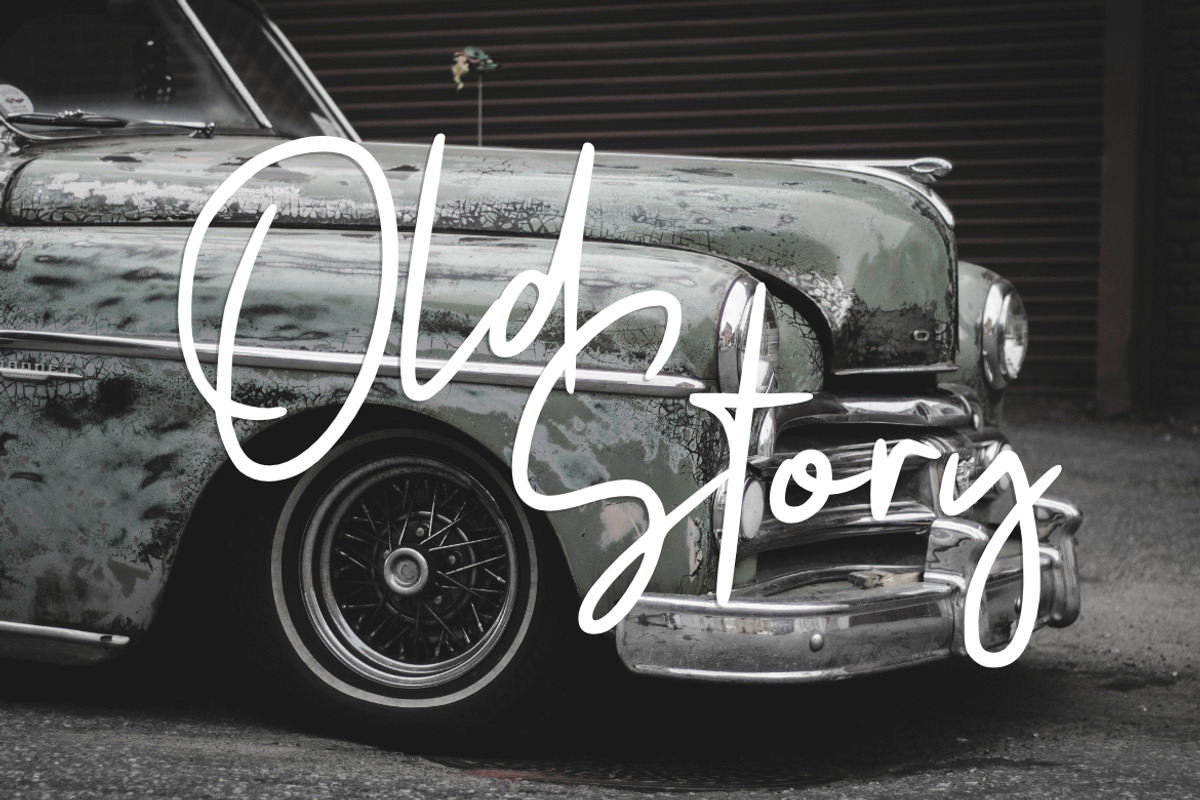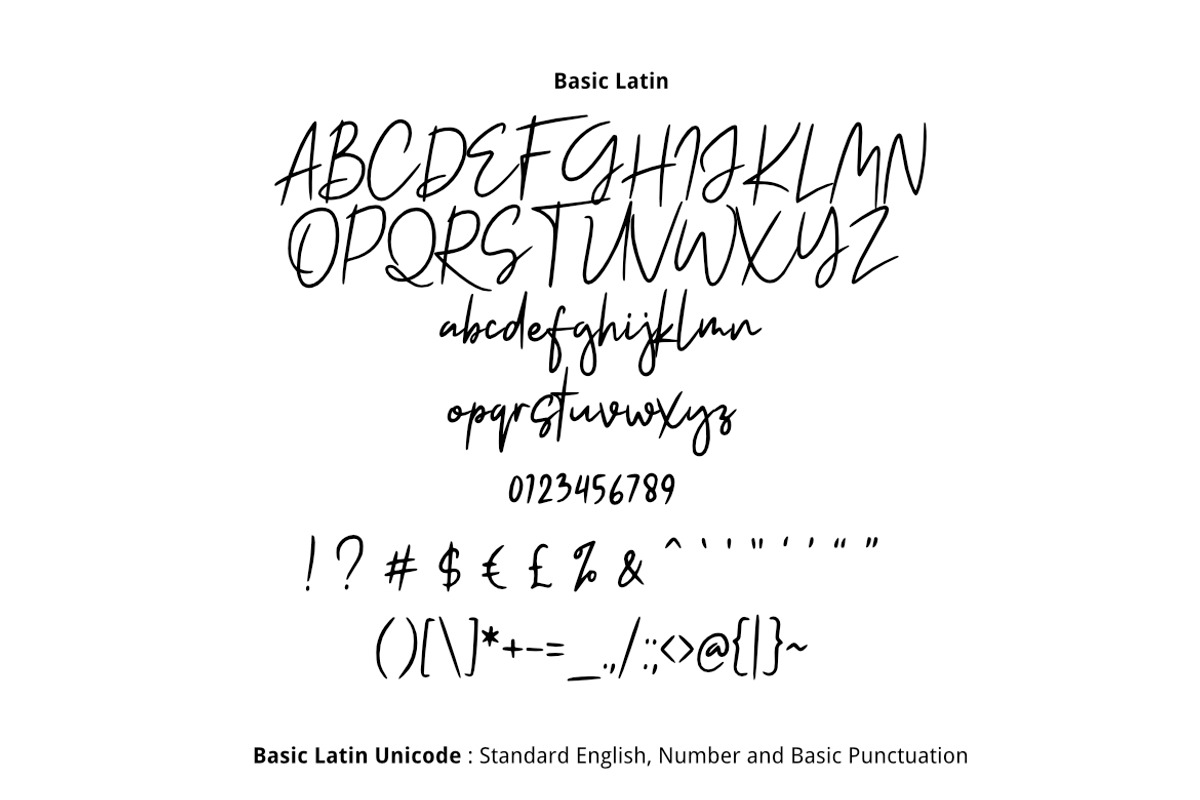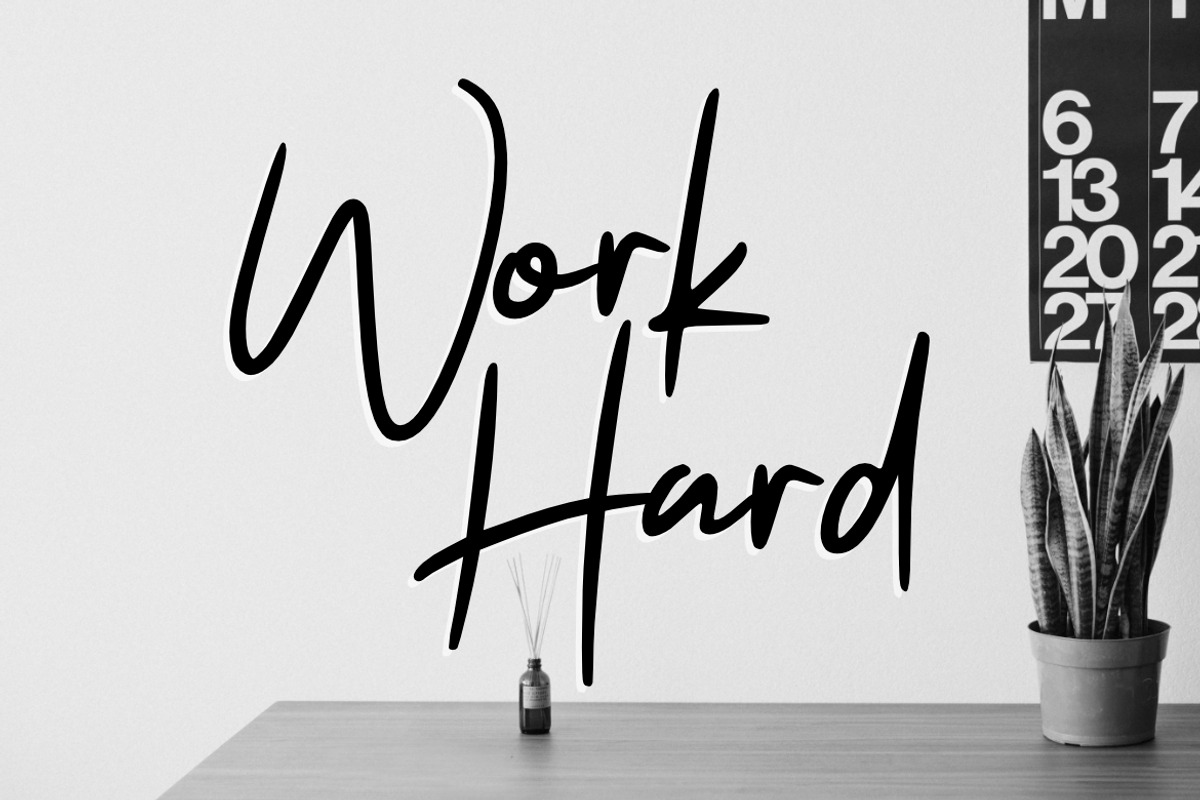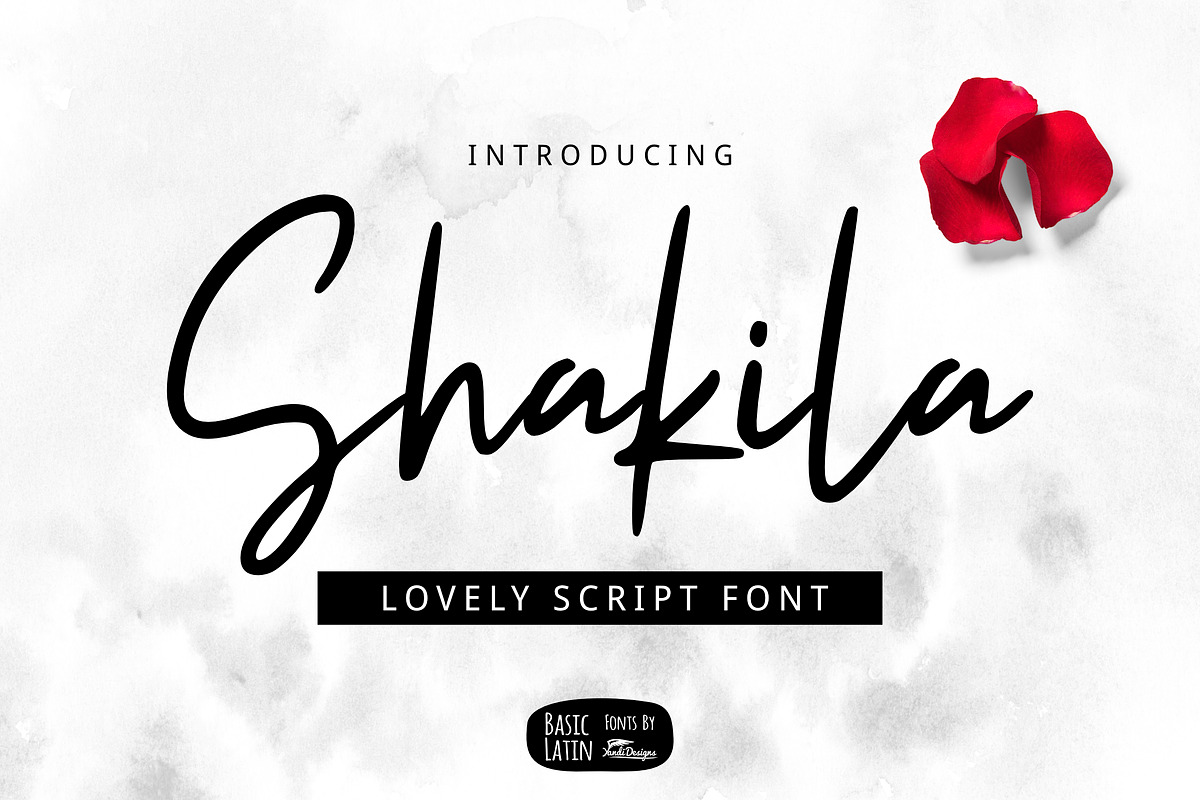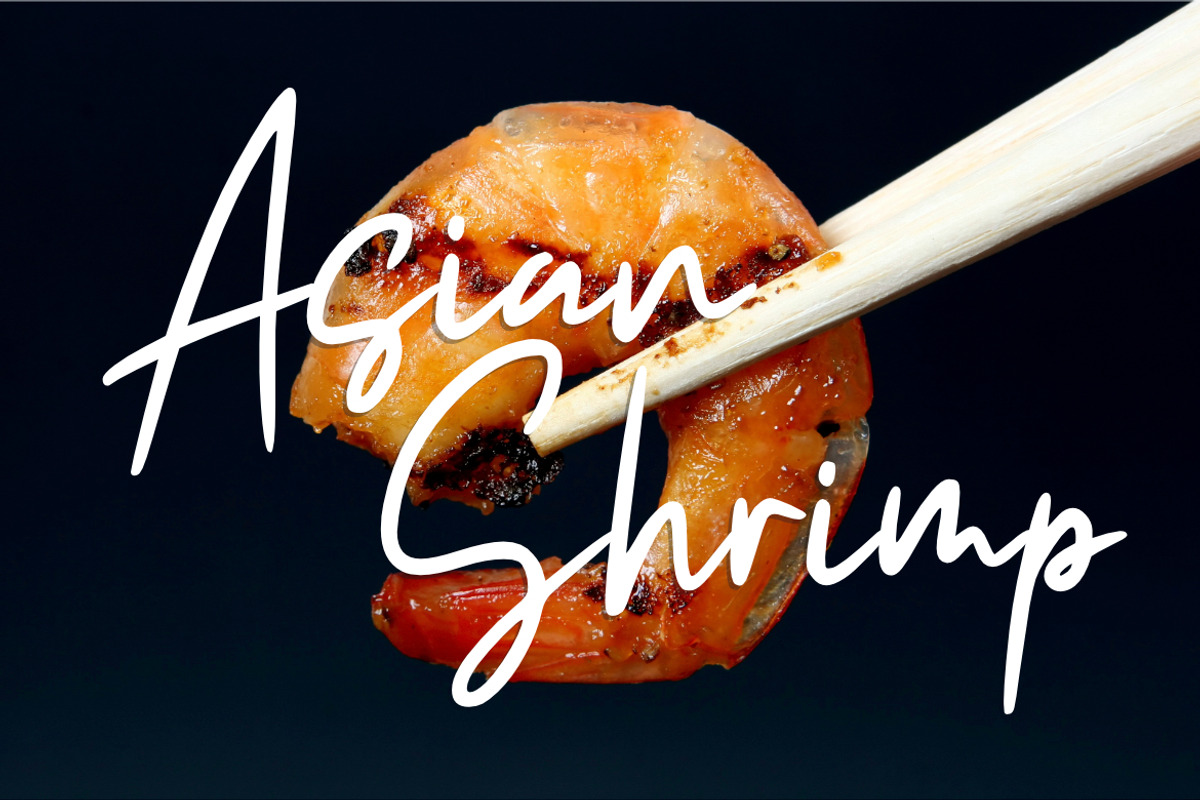
Shakila Script Font
Simple signature style script font , suitable for many project children book, quotes, logo , heading , title etc.
Why Shakila Script Font is worth a look
Shakila Script Font by YandiDesigns fits naturally into Branding, posters, packaging, typography.